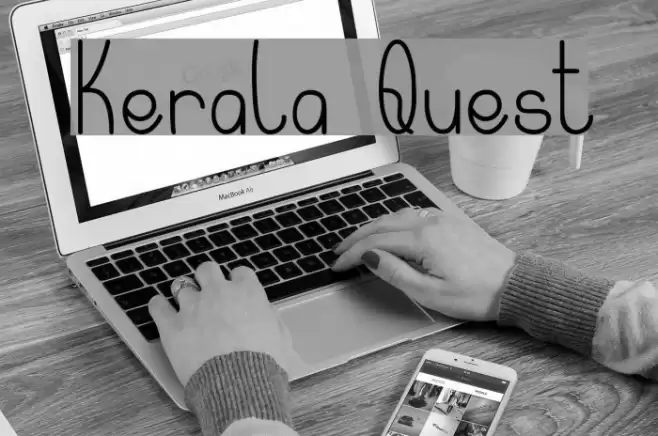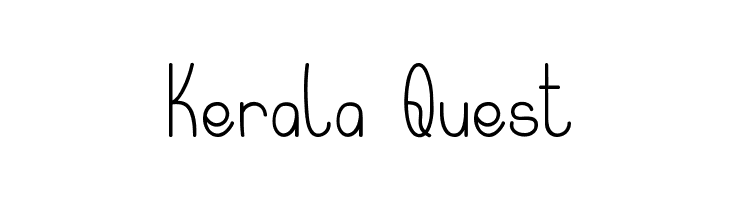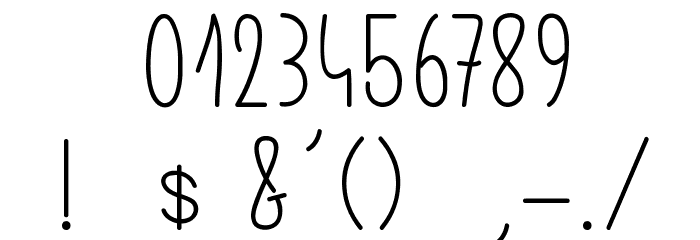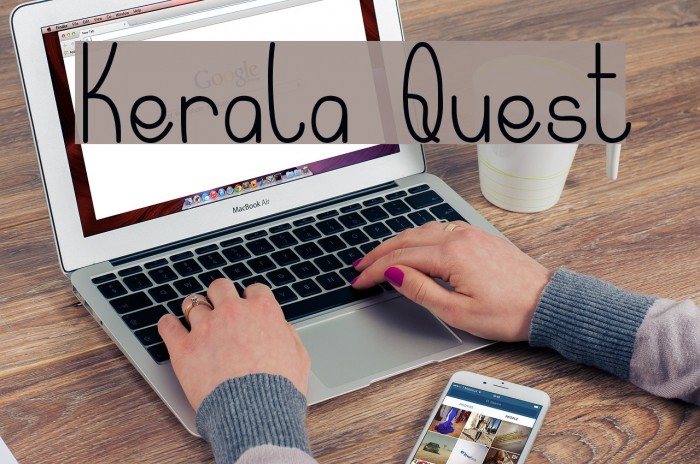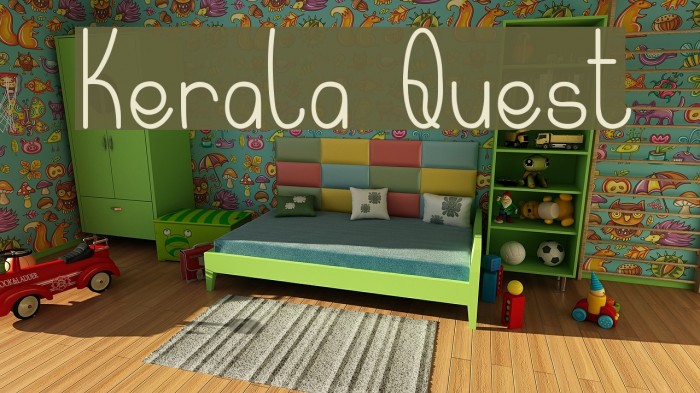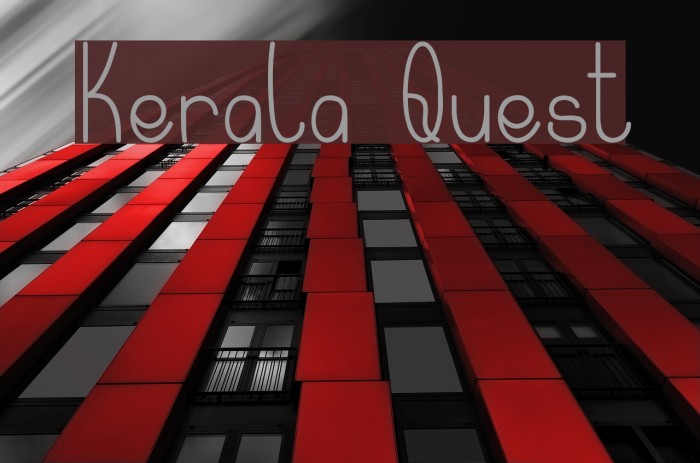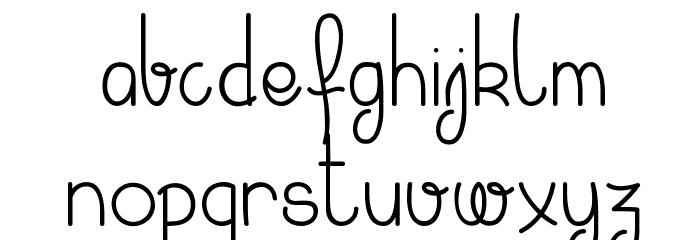
Kerala Quest Font
Kerala Quest Description
This font features a playful and quirky design with a handwritten aesthetic. The uppercase letters are tall and narrow, with some unique characteristics such as the upward arrow in the letter 'I' and the looped tail in 'Q'. The lowercase letters maintain a consistent style, with rounded edges and a casual feel. Numbers are similarly styled, with a slight slant and a whimsical touch. Special characters are included, matching the overall playful theme. The font's thin strokes and irregular shapes give it a distinctive, informal appearance.
A playful, handwritten font with quirky, narrow characters and a casual style from Uncategorized fonts.
- Proposed Projects: Ideal for children's books, creative posters, greeting cards, and playful branding.
- Overall Style: Playful
- Use Case: Logos, Posters, Greeting Cards